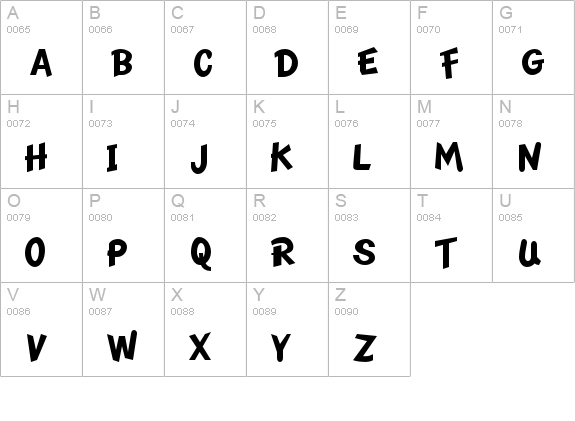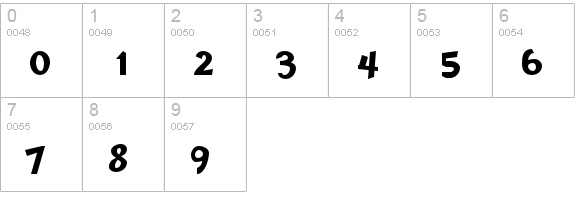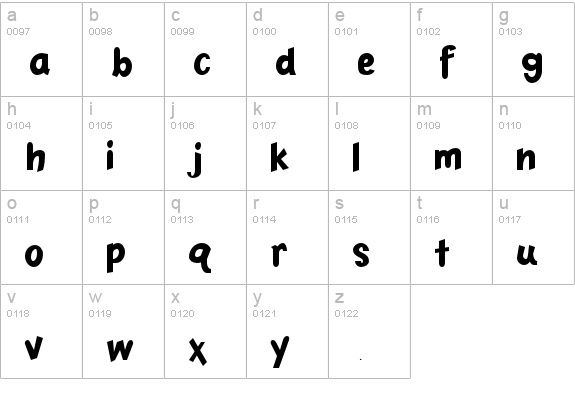
NuCasualDemo-Regular is the standard, neutral variant in the NuCasualDemo typeface family \xE2\x80\x94 well suited to general body text, paragraphs, and standard typographic work.
NuCasualDemo-Regular font is a modern and stylish typeface that exudes a casual and friendly vibe. Its clean lines and rounded edges make it perfect for a wide range of design projects, from branding and logos to social media graphics and website content. This versatile font is sure to add a touch of fun and sophistication to any project. The best part? NuCasualDemo-Regular font is completely free to download at FontsMarket.com! You can easily access this font and use it in your personal and commercial projects without any restrictions. With its easy readability and contemporary design, NuCasualDemo-Regular font is a must-have addition to your font collection. Download it today and elevate your designs with this beautiful typeface.